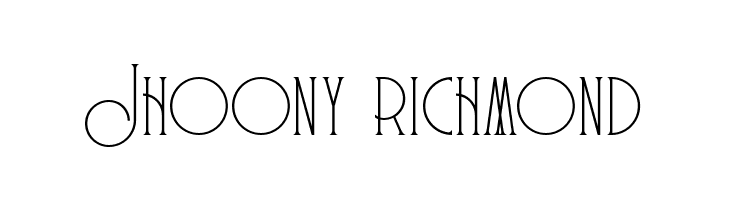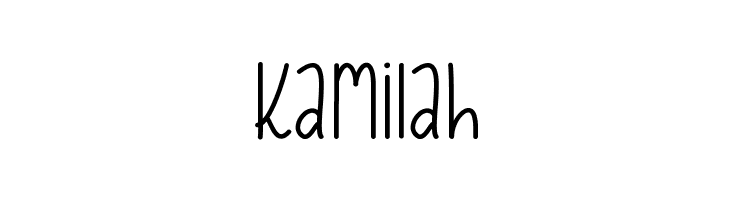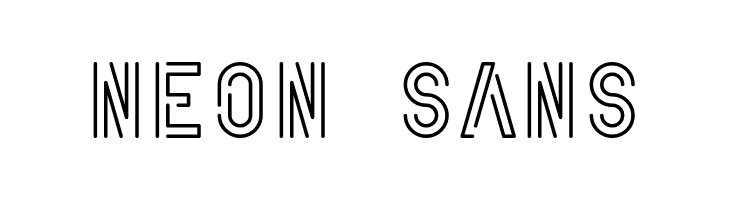
A futuristic, angular font with a geometric and modern design.
A playful, hand-drawn font with tall, narrow letters and a casual style.
A geometric, angular font with a modern and technical style.
A modern, geometric font with thin, uniform lines and a minimalist style.
A decorative and geometric font with elongated, slender letterforms.
A futuristic, geometric font with a thin, angular design.
A decorative swash and arrow design with dynamic, flowing lines.
A futuristic, geometric font with thin, angular strokes and an italic slant.
An elegant, flowing script font with smooth, cursive letterforms.
A modern, geometric outline font inspired by neon lights.